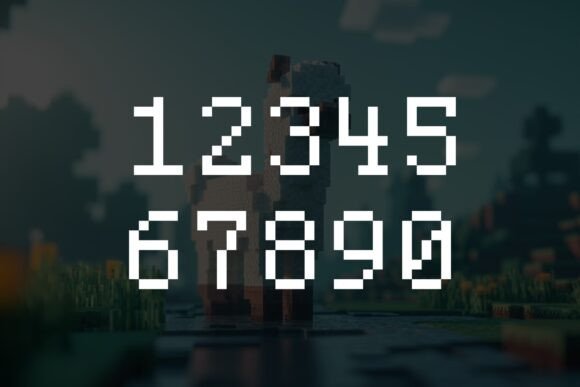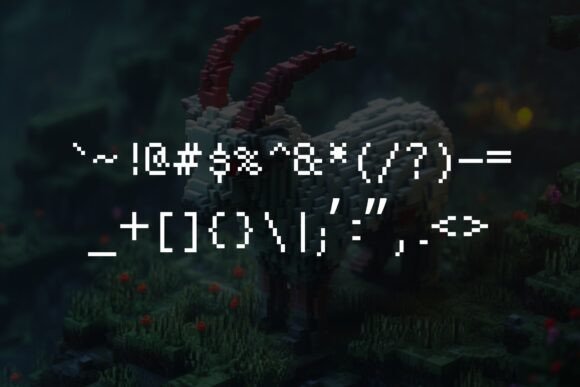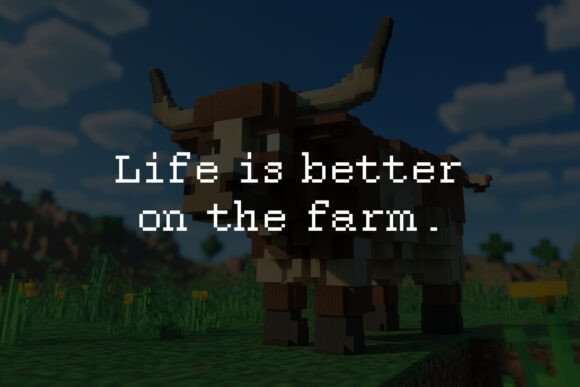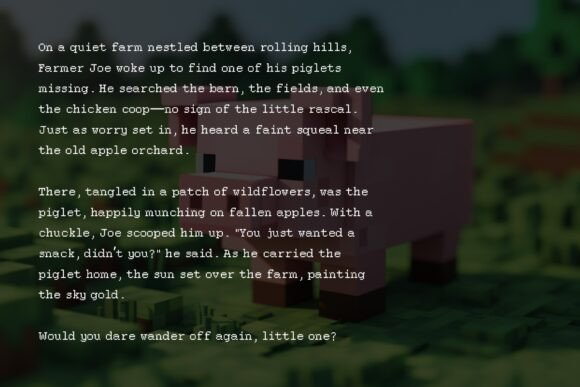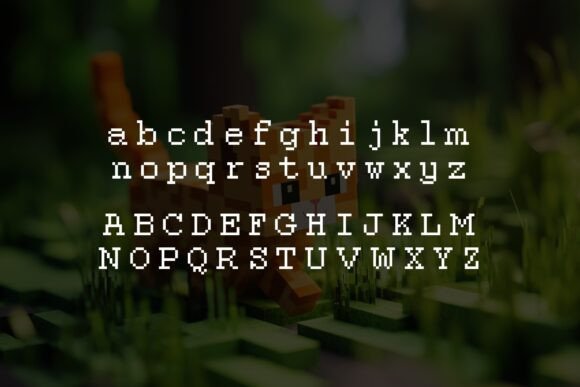
Introducing Block Craft Font: The Pixelated Perfect Choice for Retro and Modern Projects
Step into the pixelated world of Block Craft, a clean, beautiful, and highly legible 8-bit font designed for retro and modern projects alike. Whether you’re creating a game interface, YouTube thumbnails, branding, or digital art, Block Craft delivers crisp, blocky perfection with every letter. Inspired by classic arcade aesthetics and voxel-style graphics, this font brings a nostalgic yet polished feel to your designs.
The Birth of a Retro Classic
Block Craft Font is a masterful blend of old-school charm and modern usability. Its creation was inspired by the iconic typography of early video games and the distinctive look of voxel art. The result is a font that instantly evokes memories of 8-bit games and pixelated landscapes, yet remains versatile enough for a wide range of applications.
Key Features of Block Craft Font
- Clean and Beautiful Design: Each letter and character in Block Craft is meticulously crafted to provide a clean, beautiful appearance that’s easy on the eyes.
- High Legibility: The font’s bold structure and pixel-perfect clarity ensure that it remains highly legible, even at smaller sizes.
- 8-Bit Aesthetic: True to its 8-bit roots, Block Craft features a blocky, pixelated design that’s perfect for retro-style projects.
- Versatility: While it shines in retro projects, Block Craft’s clean lines and modern look also make it suitable for contemporary designs.
Applications of Block Craft Font
Block Craft Font is incredibly versatile, making it an excellent choice for various design projects. Here are some of the areas where it truly excels:
- Game Interfaces: The font’s retro arcade feel makes it a natural fit for game UI, titles, and in-game text.
- YouTube Thumbnails: Grab viewers’ attention with bold, pixelated text that stands out on any thumbnail.
- Branding: Add a touch of nostalgia to your brand identity with a font that’s both memorable and visually appealing.
- Digital Art: Enhance your pixel art and digital illustrations with text that seamlessly integrates into your creations.
Why Choose Block Craft Font?
In a world where fonts are plentiful, Block Craft stands out for several reasons:
- Nostalgia Meets Modernity: It captures the essence of retro design while remaining functional and stylish.
- Pixel-Perfect: The font is designed to look crisp and clear on any screen, ensuring your text always looks its best.
- Readability: Despite its blocky design, Block Craft is highly readable, making it practical for a variety of uses.
Block Craft Font is more than just a typeface—it’s a design statement. With its pixelated charm, clean lines, and exceptional legibility, it’s the perfect choice for designers and crafters looking to bring a touch of retro magic to their work. Whether you’re creating games, thumbnails, branding, or digital art, Block Craft delivers a polished yet nostalgic feel that’s sure to captivate your audience.
So why settle for ordinary when you can add a bit of pixel magic to your designs? Elevate your projects with Block Craft Font and experience the perfect blend of simplicity and pixelated perfection.